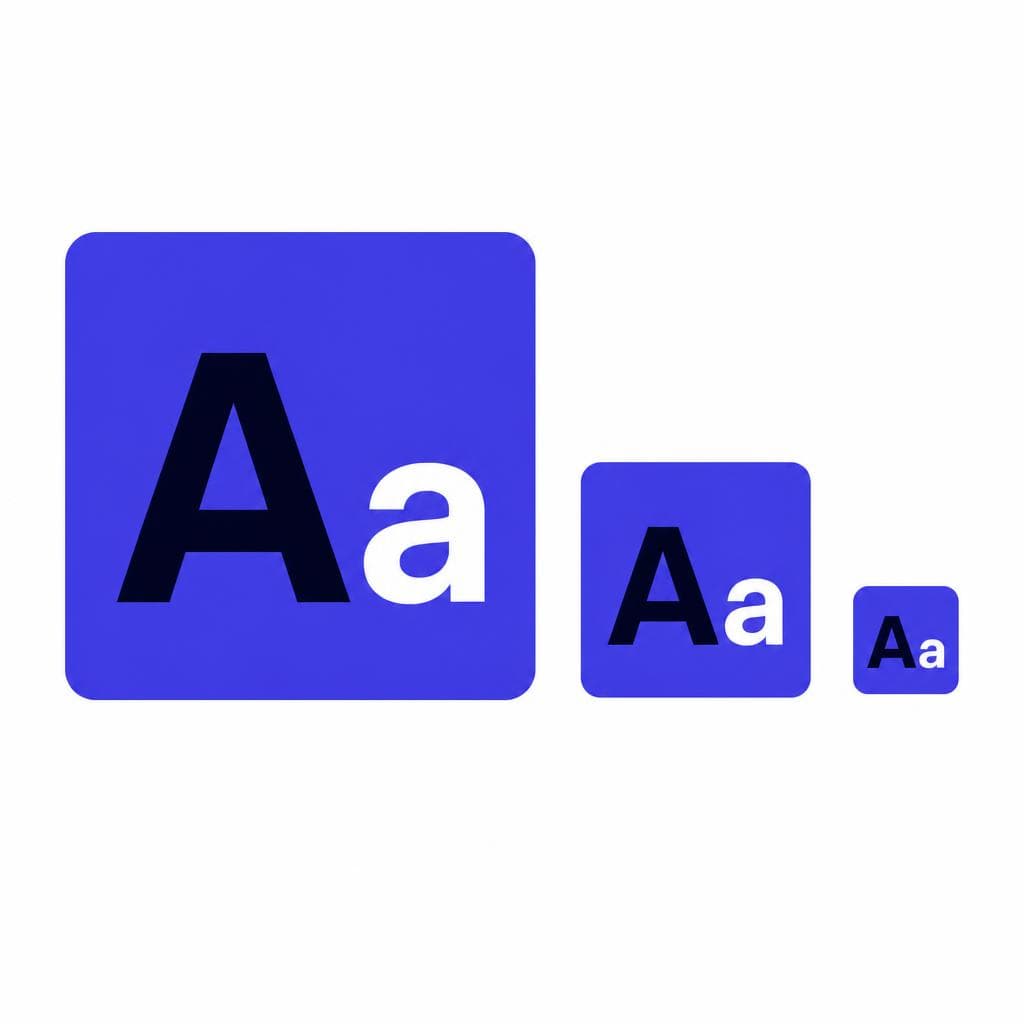
A YouTube thumbnail has an almost impossible job: it has to earn attention while competing with dozens of other videos on a small screen. Before a viewer reads your title, recognizes your face, or understands your topic, they make a fast visual decision: click or keep scrolling. Thumbnail text is often processed in a fraction of a second, which means your font choice is not a decorative afterthought. It is part of your packaging strategy.
The best font strategy for YouTube thumbnails is not simply choosing a popular typeface and putting it on every image. It is building a repeatable system that makes your message readable at small sizes, communicates the right emotion, and looks unmistakably like your channel. Whether you publish gaming videos, tutorials, finance explainers, beauty reviews, or documentary-style essays, the right YouTube thumbnail font can make a short phrase feel urgent, premium, funny, dramatic, or trustworthy.
This guide explains what makes thumbnail typography work, which font styles tend to perform well, when custom lettering is worth creating, and how to maintain consistency without making every thumbnail look identical. The goal is simple: make the words on your thumbnail easier to notice, faster to understand, and more compelling to click.
Why Thumbnail Fonts Matter More Than Most Creators Think
A thumbnail is viewed under harsh conditions. It may appear at a tiny size in a mobile feed, beside visually loud competitors, against YouTube’s dark interface, or in a recommendation panel where viewers are moving quickly. A font for YouTube thumbnails must survive all of that. If viewers have to pause to decode a word, the text has already failed its primary job.
Fonts also shape expectation. Imagine the phrase “I Tried It for 30 Days” set in a narrow, elegant serif. It may feel reflective or editorial. Set the same words in a thick, condensed sans serif with a bright outline, and it immediately feels more energetic and challenge-driven. Neither choice is universally better; the best font for thumbnails is the one that supports the promise your video makes.
This is why thumbnail typography affects click-through rate indirectly but meaningfully. It improves message recognition, creates emotional framing, and helps repeat viewers identify your content in a crowded feed. For an educational channel, a clean and confident YouTube text font can signal clarity. For a high-energy entertainment channel, oversized letterforms can communicate excitement before a viewer reads the actual words.
The important distinction is that legibility and visual personality are separate requirements. A font can be stylish but unreadable. It can also be extremely readable but generic enough to disappear among similar videos. Strong thumbnails balance both: viewers should understand the text instantly and recognize a distinct visual voice over time.
What Makes a Thumbnail Font Work?
Prioritize fast recognition over visual complexity
The most effective clickable thumbnail font usually has a few practical characteristics: thick strokes, clear letter shapes, generous spacing, and strong contrast with the background. These qualities are especially important on mobile, where thin lines and intricate details can disappear.
Start with weight. Bold, black, extra-bold, and heavy font weights generally outperform light or regular weights because they hold their shape after YouTube compresses the image. A word like “SECRET” in a heavy sans serif remains readable even when the thumbnail is reduced. The same word in a delicate script may become a blur.
Next, look at letterform clarity. Choose fonts where individual characters are easy to tell apart at a glance. Avoid overly decorative forms, extreme slants, or unusual character shapes when the message is important. For example, if your thumbnail says “$10 vs $1,000,” the numbers and punctuation need to be unmistakable. Clarity is even more critical for thumbnails targeting viewers who may be quickly scanning in a second language.
Contrast is not just about choosing white text on a dark photo. You also need contrast in size, weight, color, and placement. Put light letters against a darkened area of the image, add a subtle shadow or outline when necessary, and avoid placing words across busy facial features, product details, or high-texture backgrounds. A dark gradient behind text often looks more polished than a thick outline around every letter.
Finally, reduce the word count. Even the strongest YouTube content font cannot rescue a 12-word sentence. Most thumbnails work best with two to five words, ideally expressing a tension, result, comparison, or question. “I WAS WRONG,” “DON’T BUY THIS,” “$0 TO $10K,” and “THE REAL TEST” are easier to scan than a full explanation. Let the video title carry the detail; let the thumbnail create the emotional hook.
Top Font Styles That Perform Well on YouTube
Match the style to the video’s promise